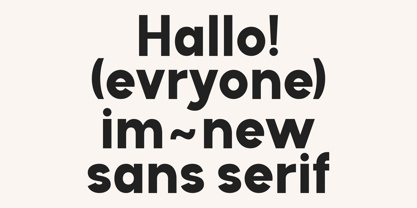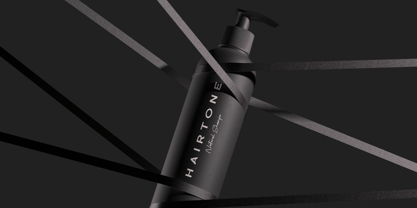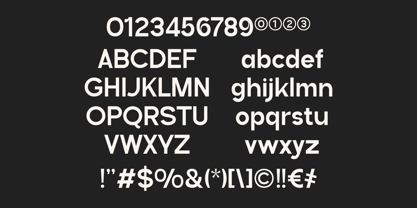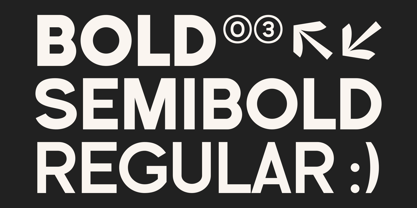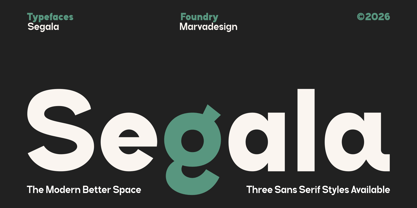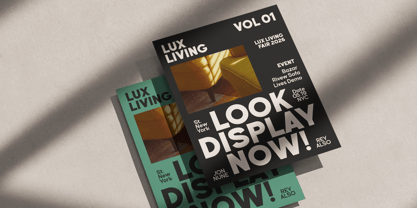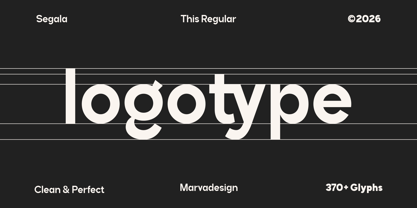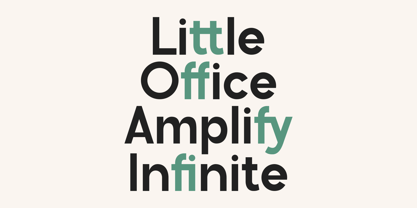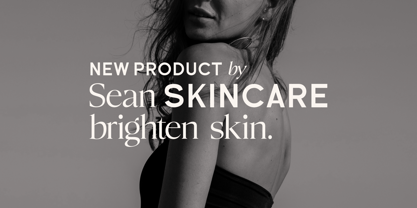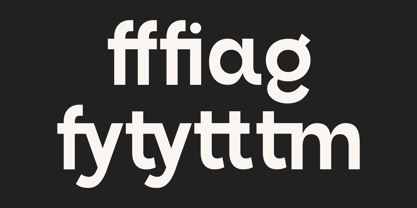
Segala
by Marvadesign
The Segala Font Family was designed by Febrie Setiawan and published by Marvadesign. Segala contains 3 styles and family package options. More about this family
Segala
is a modern geometric sans serif typeface designed to deliver a clean, confident, and highly versatile visual identity. Built with balanced proportions, smooth curves, and strong geometric construction, it combines contemporary simplicity with subtle personality. Every character is carefully refined to achieve excellent readability while maintaining a bold and distinctive appearance, making it equally effective for both large display applications and professional branding systems.
The typeface offers three carefully crafted styles, allowing designers to create dynamic typographic hierarchies without sacrificing consistency. In addition, Segala includes 370+ glyphs, multilingual language support, stylistic alternates, and discretionary ligatures that provide greater creative flexibility. Whether used in minimal editorial layouts, premium branding, packaging, digital interfaces, or sophisticated marketing materials, Segala delivers a timeless modern aesthetic that feels clean, approachable, and refined
Designers: Febrie Setiawan
Foundry: Marvadesign